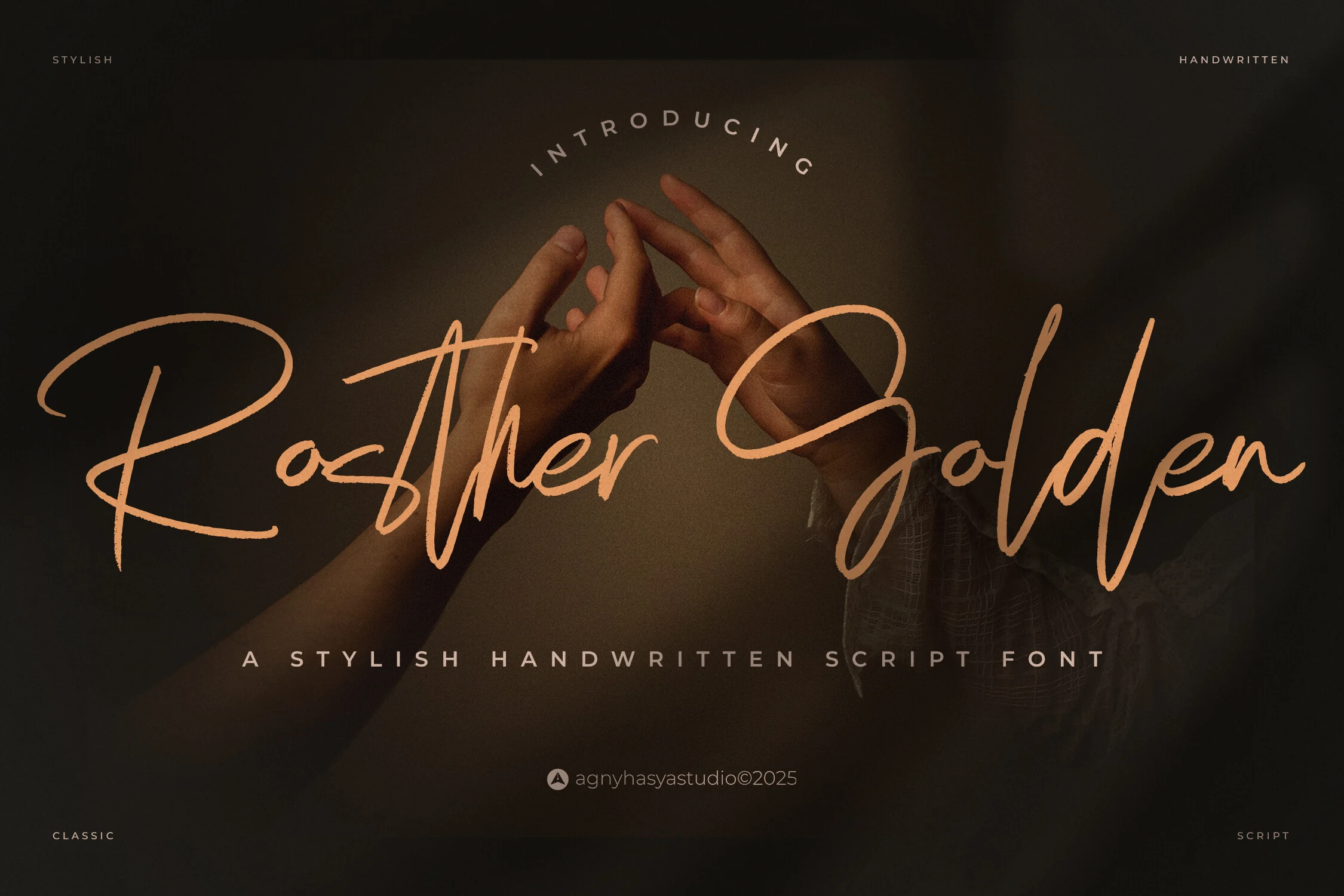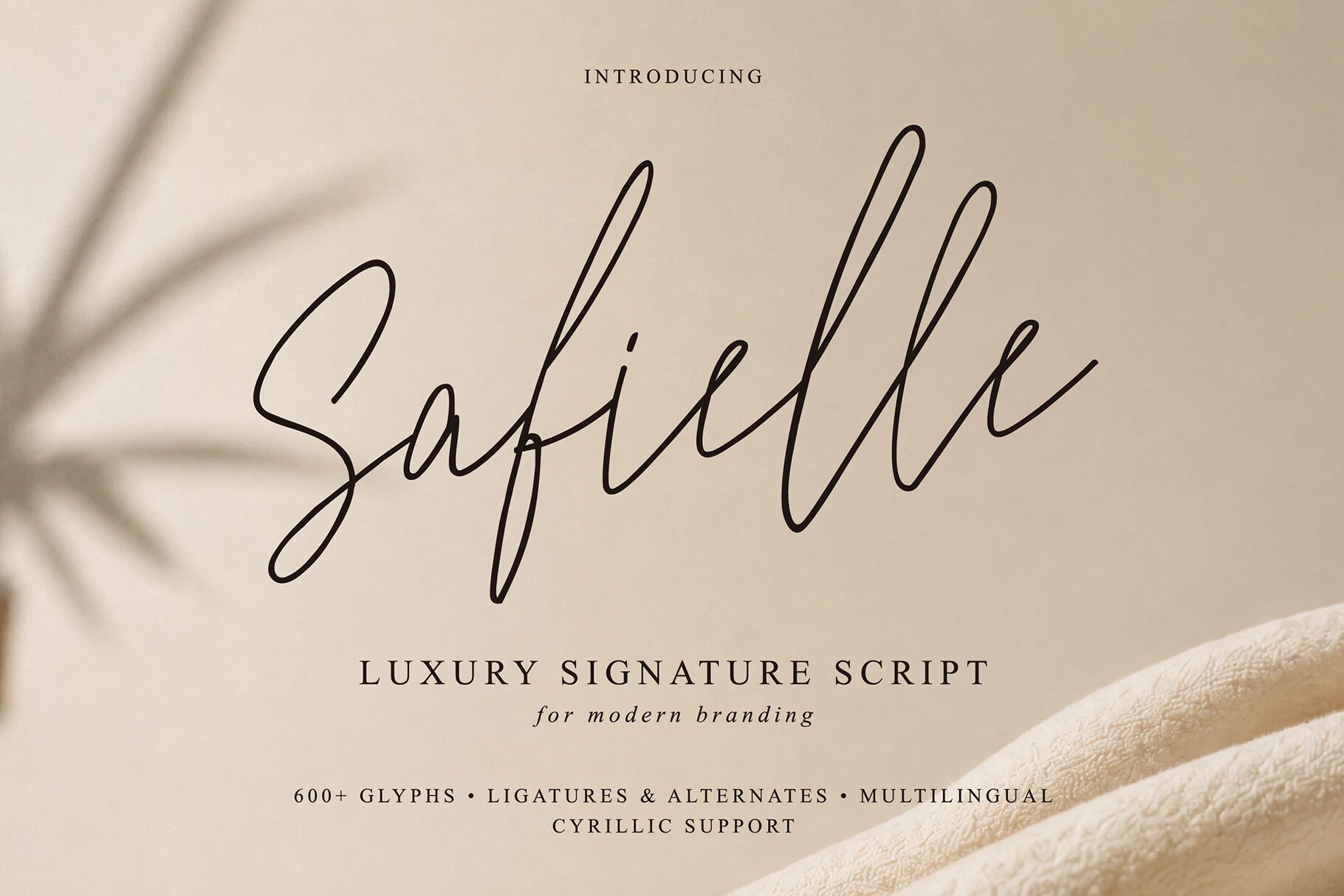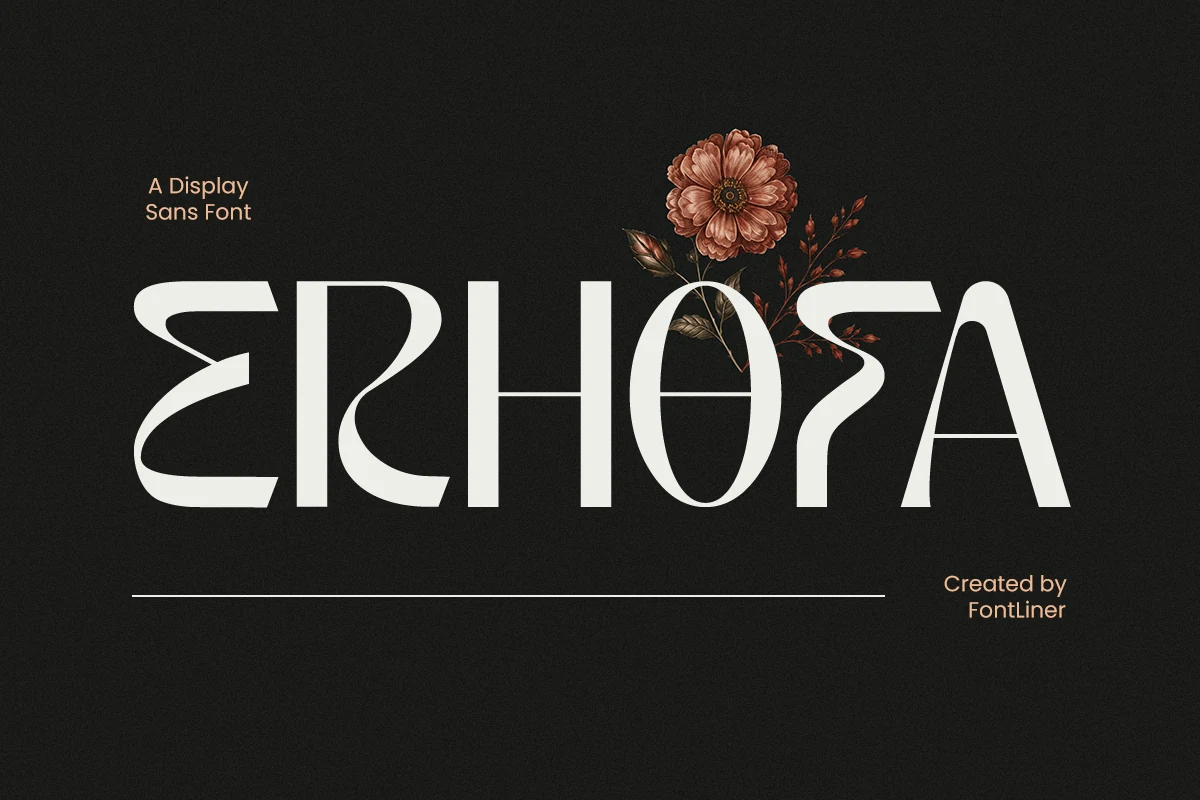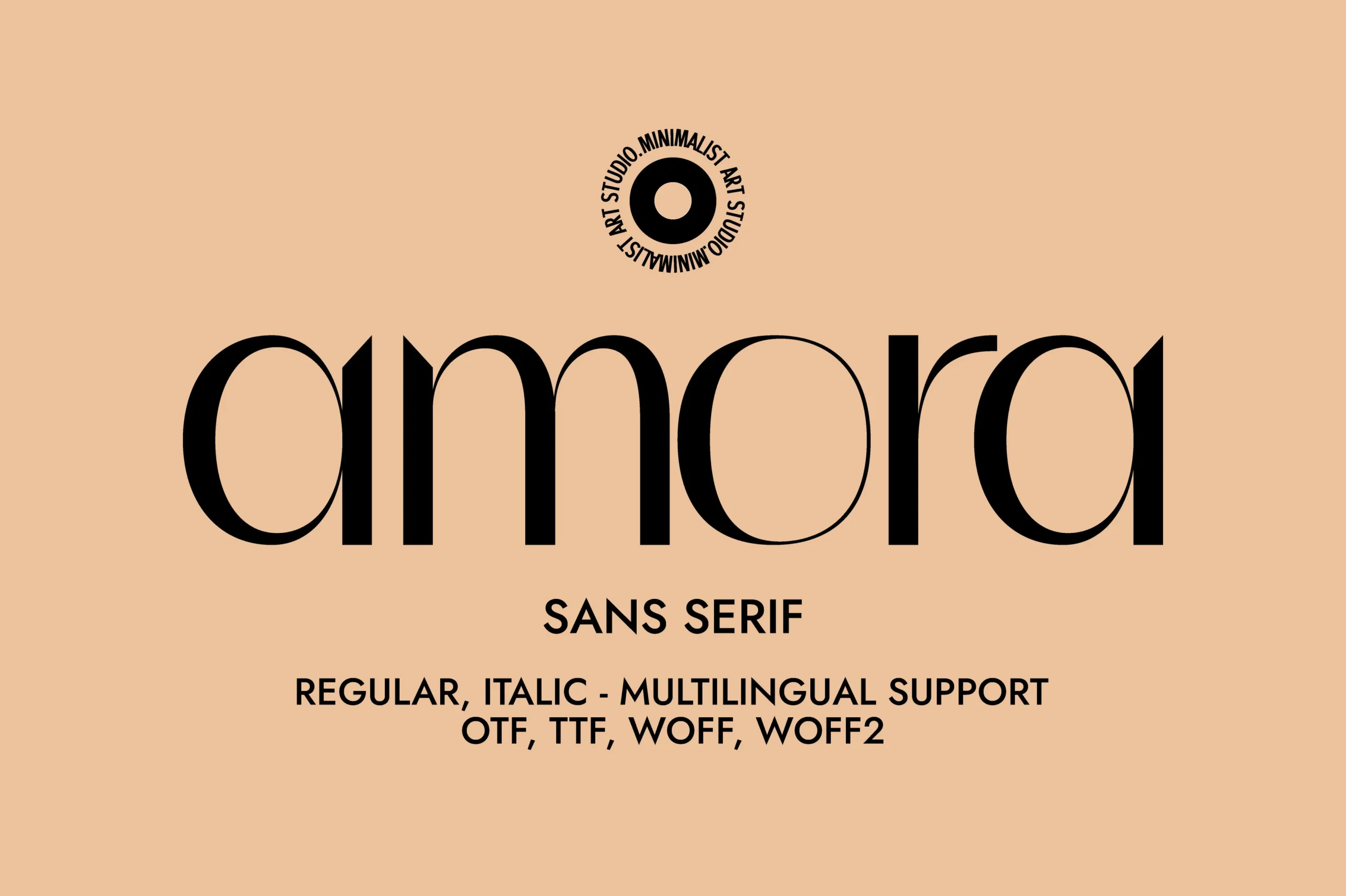
11 Elegant Branding Fonts for Stunning Luxury Designs
Elegant Branding Fonts help brands look refined without relying on generic luxury clichés. This collection is built for designers working on fashion identities, beauty logos, boutique packaging, wedding stationery, editorials, and premium social graphics where typography needs to feel polished, expressive, and memorable.
High-Contrast Serif Elegant Branding Fonts
These serif-led fonts use sharp contrast, graceful curves, and polished details for fashion identities, editorial titles, luxury packaging, and boutique logos.
Reglica Font
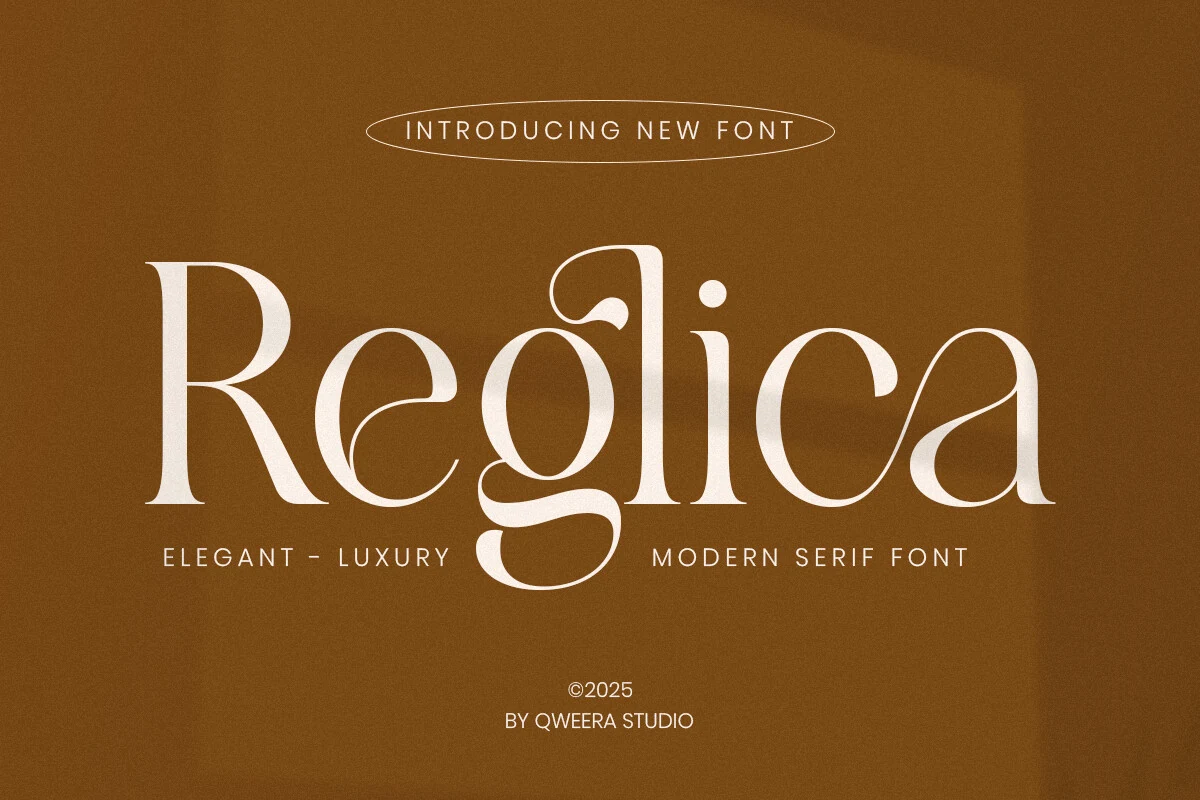
Best For: fashion branding, luxury designs, editorial designs, logos
Reglica Font reads as a polished modern serif with tall, calm proportions, sharp contrast, and soft inward curves that keep the wordmark from feeling rigid. The preview shows a sculptural lowercase g, a broad capital R, and fine hairline strokes that give it a premium editorial rhythm rather than a plain corporate serif.
For Elegant Branding Fonts, Reglica works best where the typography is the identity: fashion logos, boutique headers, and cover titles. Keep letter spacing restrained in mixed-case settings, but increase contrast around it so the thin strokes and decorative curves stay crisp.
Luxurimo Font
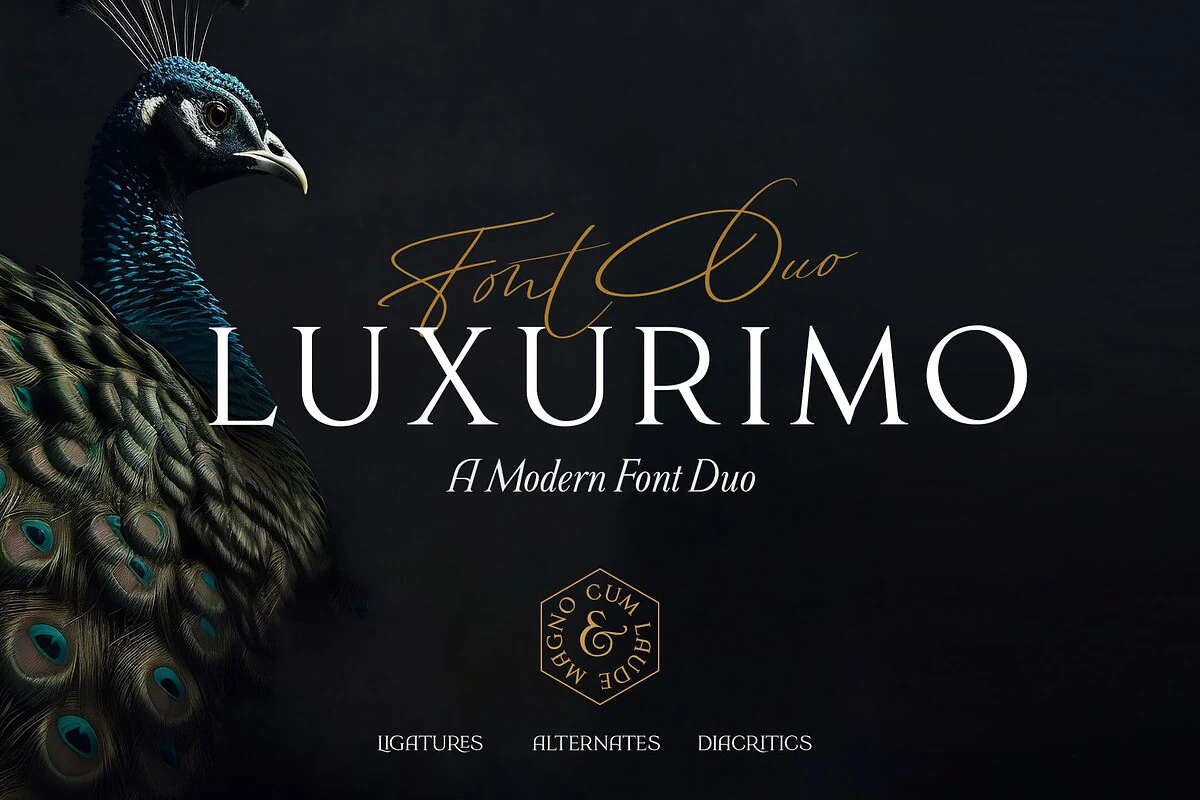
Best For: luxury designs, fashion branding, wedding designs, invitations
Luxurimo Font pairs a stately serif with a fine signature script, giving you two distinct voices in one set. The serif capitals are tall, high-contrast, and evenly spaced, while the script moves in long, airy strokes that feel ornamental without becoming heavy, so the duo reads polished and fashion-led at first glance.
That contrast makes Luxurimo especially useful for Elegant Branding Fonts: set the serif for the main name, then bring in the script for a short accent, tagline, or monogram-style detail. Keeping the script to just a few words helps the sweeping lines stay graceful and prevents busy layouts from swallowing its delicate rhythm.
Lovage Font
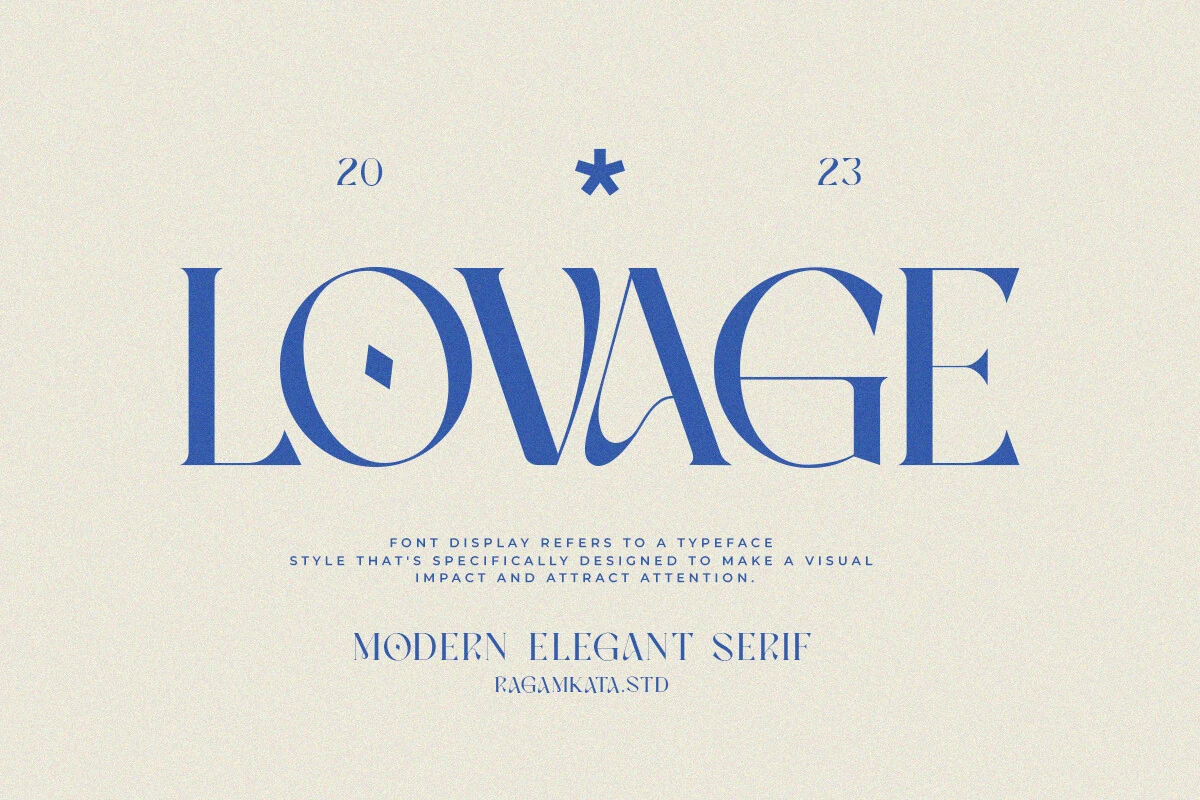
Best For: invitations, social media graphics, elegant designs, logos
Lovage Font has a bold display serif look with sharp contrast, crisp verticals, and a few sculptural twists that keep it memorable. The preview shows a stylized O with an inset detail, a dramatic V-to-A transition, and fine hairlines against broader strokes, giving the letters a polished editorial feel rather than a conventional classic serif.
That character makes Lovage a strong option for Elegant Branding Fonts when the title itself needs to carry the mood. It works especially well on invitation covers, logo concepts, and refined social posts, where generous sizing and clean spacing help the distinctive inner shapes stay clear.
Roowgen Font
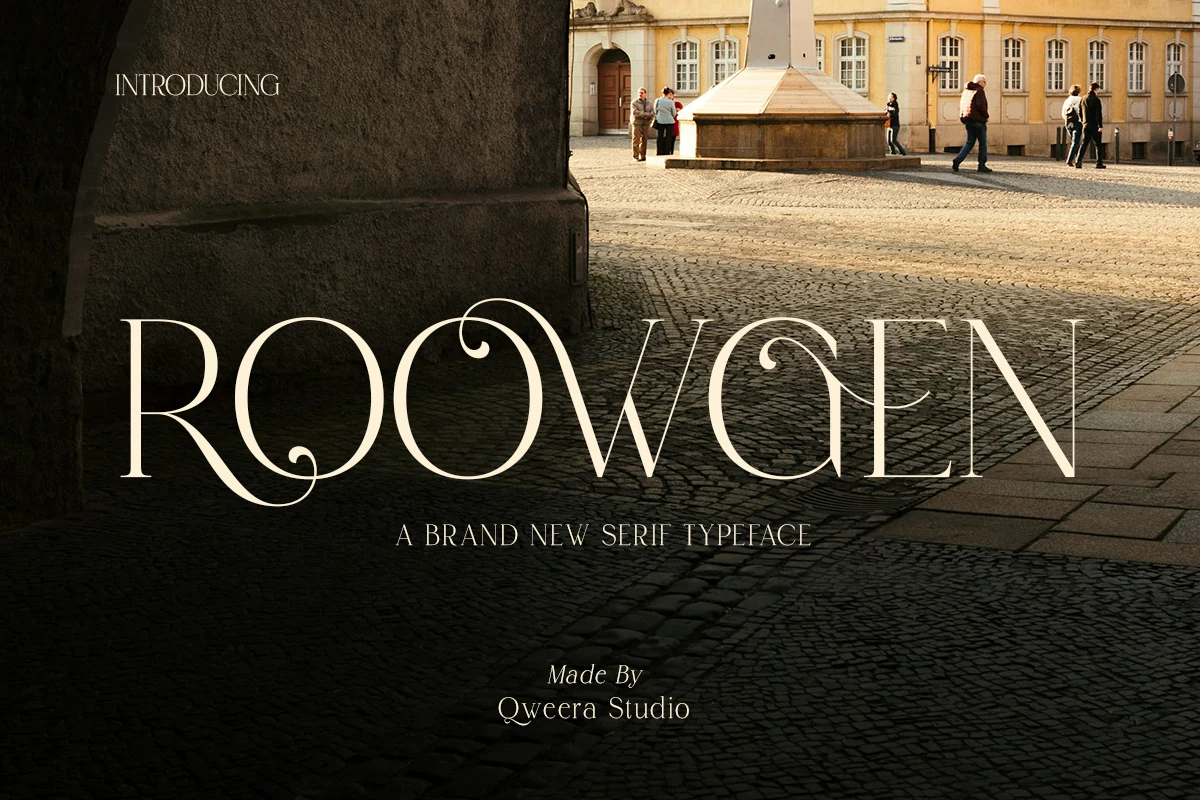
Best For: logos, editorial designs, fashion branding, packaging
Roowgen Font is a high-contrast serif with slender stems, broad bowls, and ornamental swash curls tucked into the O and G. The capitals feel stately and elongated, while the fine hairlines keep the wordmark light, giving it an editorial presence that feels refined instead of overly decorative.
It works especially well for fashion branding, packaging, and masthead-style titles where the typography needs to carry the mood. In Elegant Branding Fonts lineups, Roowgen stands out when you give the swash alternates room and keep spacing measured, so the curled details read crisp rather than crowded.
Flowing Script Elegant Branding Fonts
These script fonts bring flowing strokes, swashes, and signature-style movement to beauty brands, invitations, personal logos, and premium social graphics.
Renatta Font
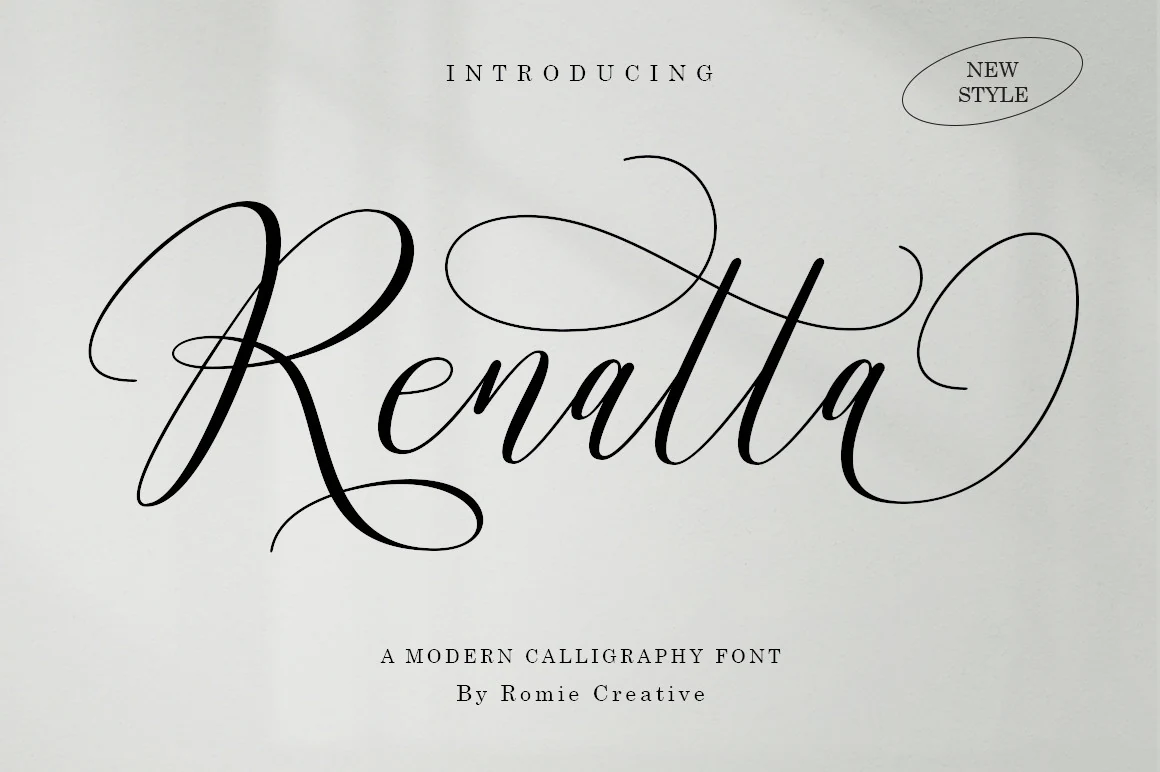
Best For: branding, invitations, wedding designs, fashion branding
Renatta Font has a high-contrast calligraphy look with a tall looping capital R, slim connecting strokes, and expansive swashes that stretch well beyond the word. The letterforms feel fluid and polished, giving short titles a romantic rhythm without losing the clean structure needed for refined presentation.
Within Elegant Branding Fonts, Renatta is strongest when the name itself needs to carry the mood. Use it for short brand signatures, invitation headings, or cover lines, and leave generous surrounding space so the long flourishes can breathe without tangling with nearby text.
Fionelle Font
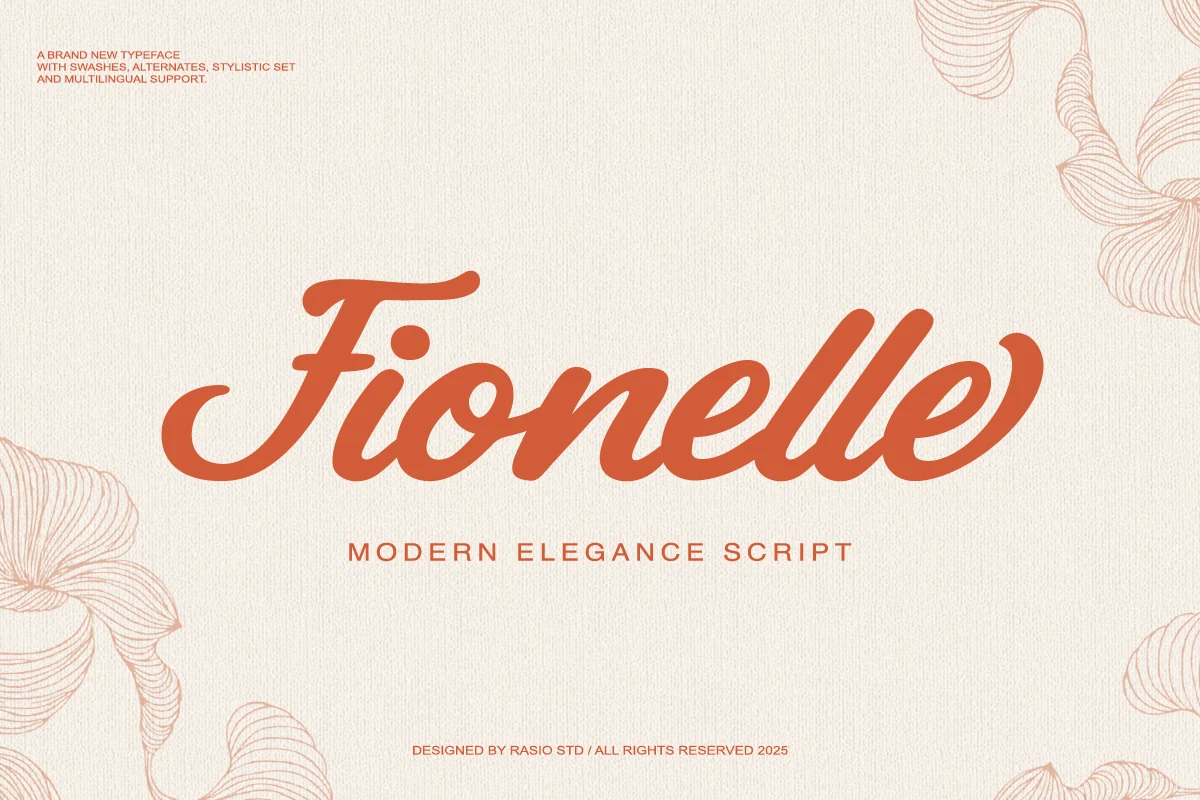
Best For: beauty branding, fashion branding, invitations, logos
Fionelle Font is a smooth connected script with bold rounded strokes, a broad sweeping F, and soft terminals that keep the wordmark warm rather than formal. Its low-contrast rhythm and slightly slanted movement make it readable in short brand names, while the opening and closing swashes add enough flourish for display use.
For Elegant Branding Fonts, this one fits identities that need quiet confidence rather than decoration. Use it for short brand names, headers, or packaging marks with generous tracking; tight spacing would flatten the minimalist proportions and reduce the calm, premium effect.
Conclusion
Choose a high-contrast serif when you need polished editorial authority, a flowing script when the brand needs a softer signature feel, and a minimal sculptural display font when the identity should look clean, modern, and restrained.